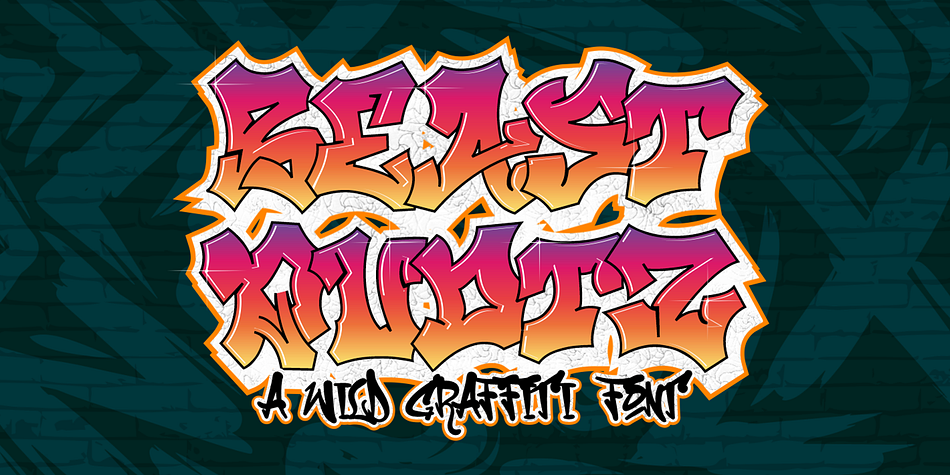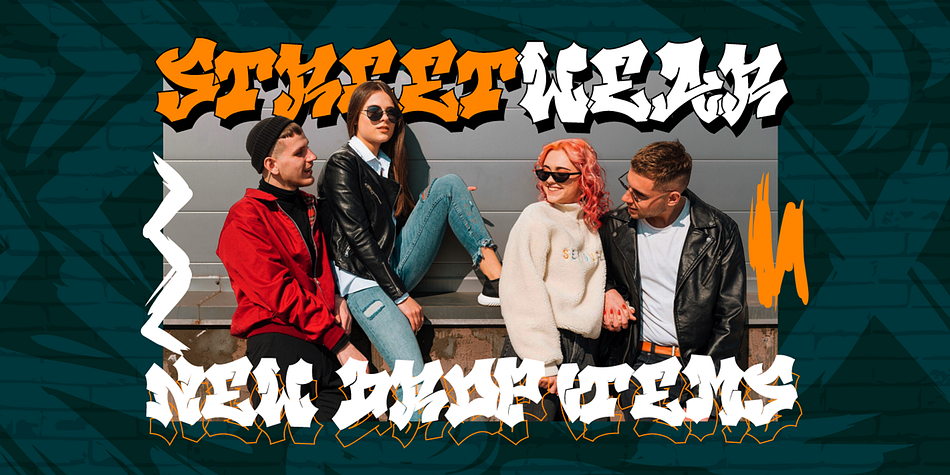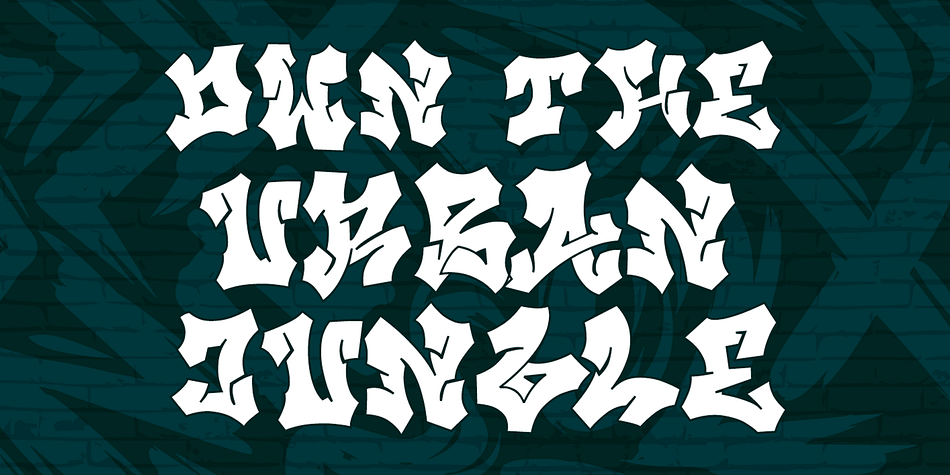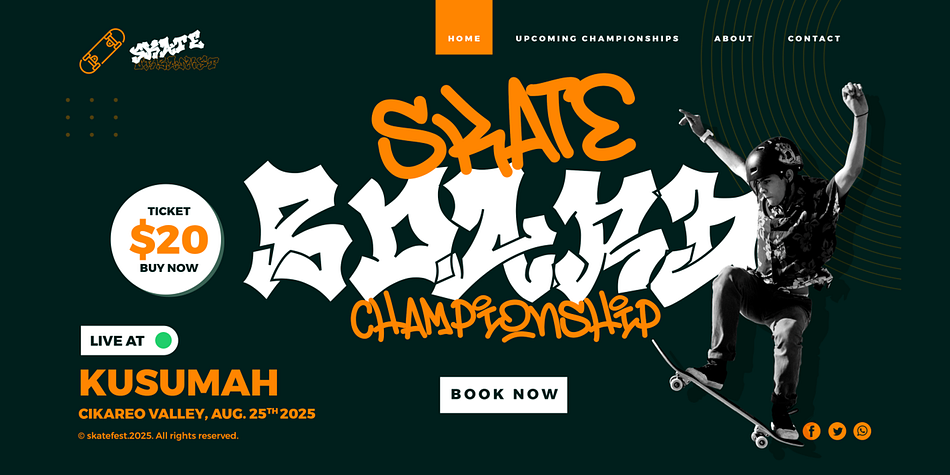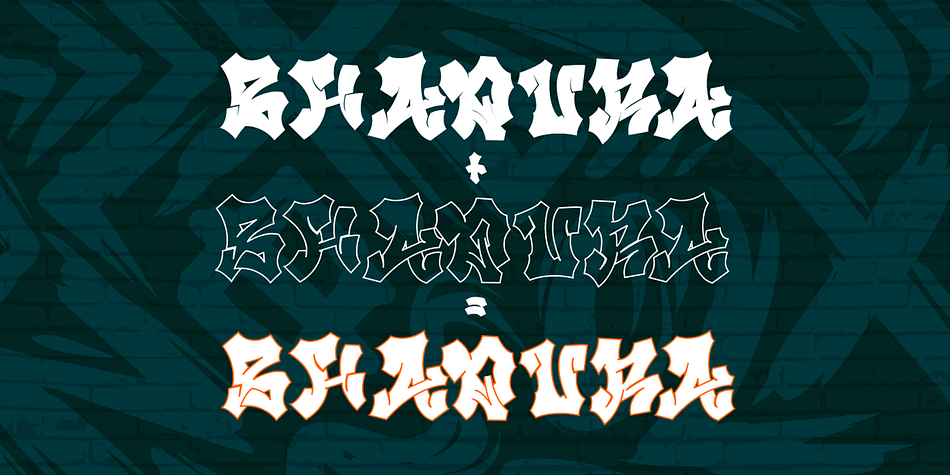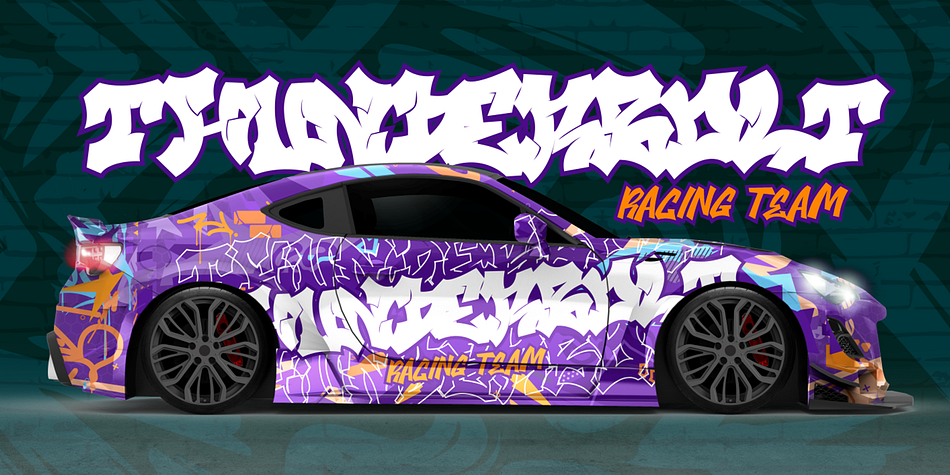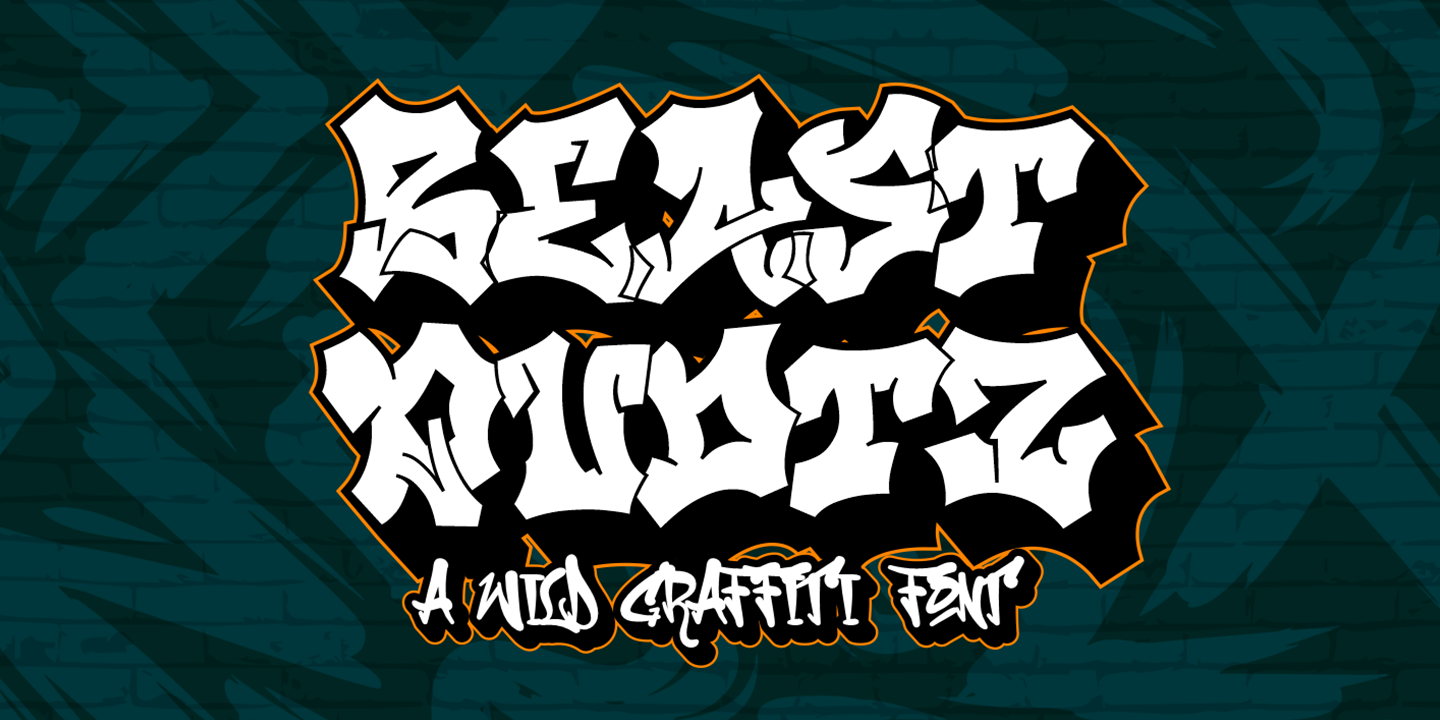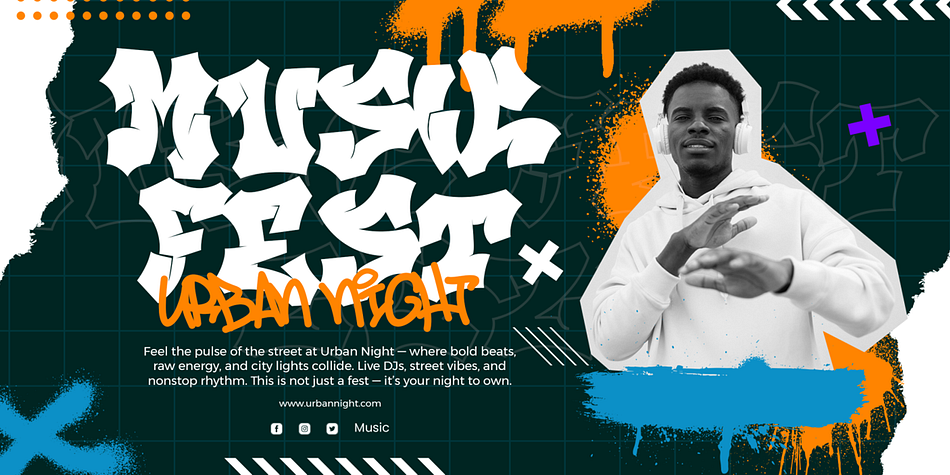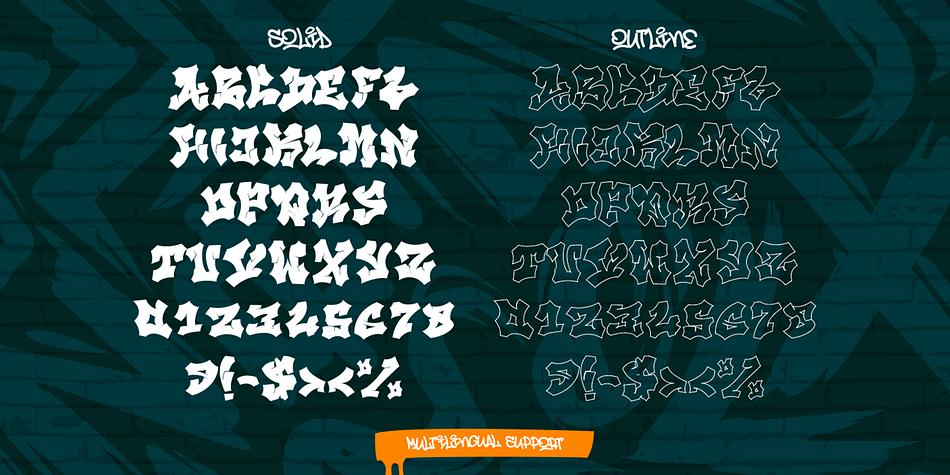
Beast Quotz
Beast Quotz is a brush display font family. This typeface has two styles and was published by Cikareotype Studio.
Beast Quotz is a wild and energetic graffiti font that captures the raw essence of street culture. With 2 powerful styles (Solid and Outline), this font is perfect for bold urban designs, streetwear, hip-hop album covers, and extreme sports branding. Use it for Cricut, Silhouette, t-shirts, posters, stickers, and digital crafts.
This font is ideal for:
- Graffiti-inspired projects
- Layered font effects
- Urban and edgy designs
- Versatile for branding, headline, or printing product